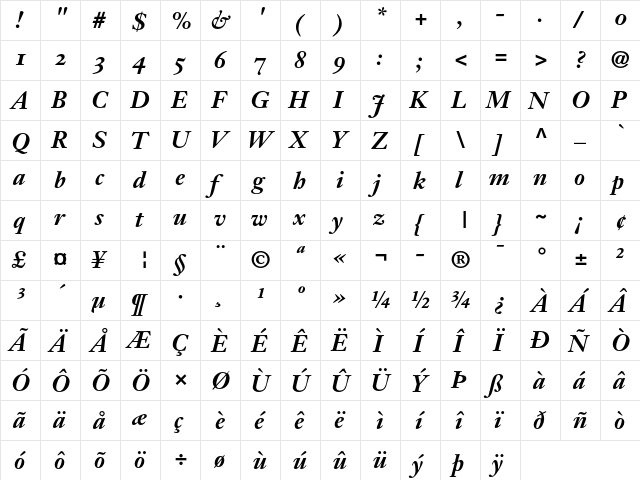
Janson Text 76 Bold Italic OsF
Design Context for Janson Text Typeface
Janson Text offers clean, dependable letterforms without strong stylistic allegiance, making it a practical choice for designers who need flexibility. The slanted form adds forward momentum and visual energy. Its bold stroke weight gives it real presence on the page.
Pro Tip: Use Janson Text for emphasis, pull quotes, and subheadings where its slanted energy can add rhythm to the layout.